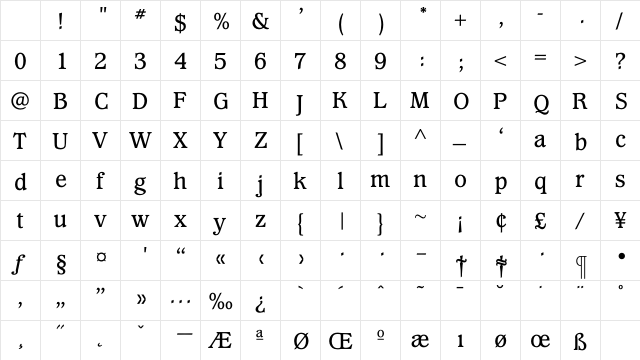
Complete WaverlyMedium Regular glyph index. Displaying only characters natively supported by WaverlyMedium Regular font.
WaverlyMedium is a composed and adaptable typeface that performs quietly and consistently across a wide range of design contexts.